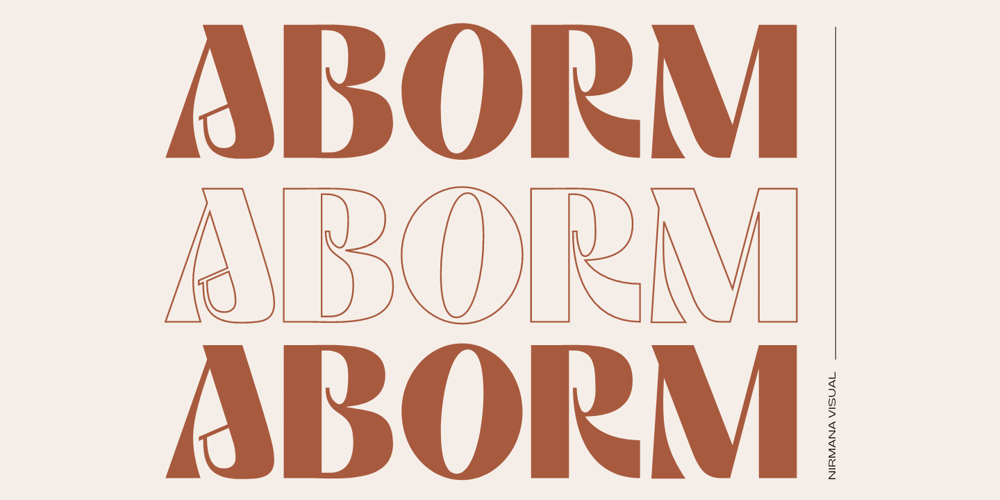
Aborm Font Family was designed by Sigit Dwipa and published by Nirmana Visual. Aborm contains 1 styles and family package options. Aborm a classy, contemporary of Sans Serif font, Inspired by 1980’s.Ideally suited for advertising and packaging, festive occasions, editorial and publishing, creative industries and posters.